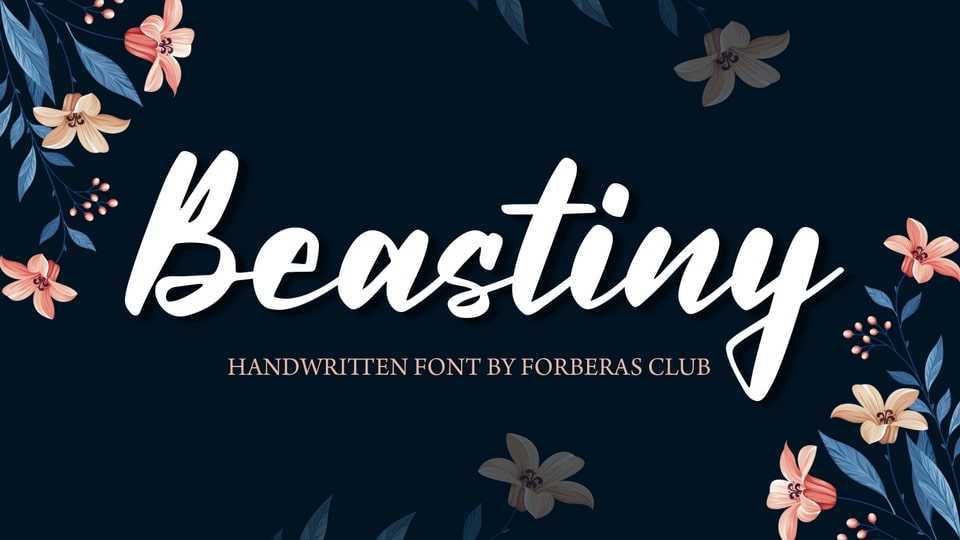
Download Beastiny font, a simple script typeface inspired by modern and ligature characters. Beastiny is especially designed for elegant, feminine projects.